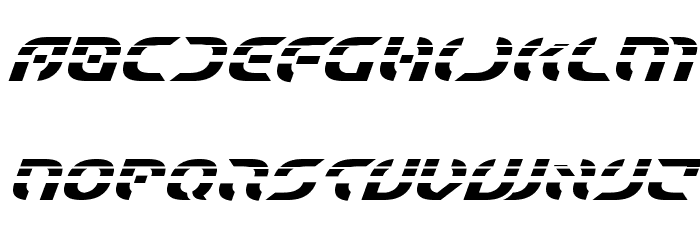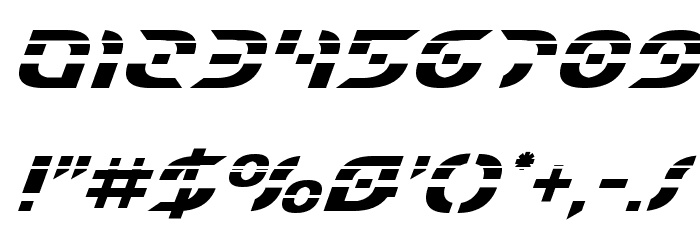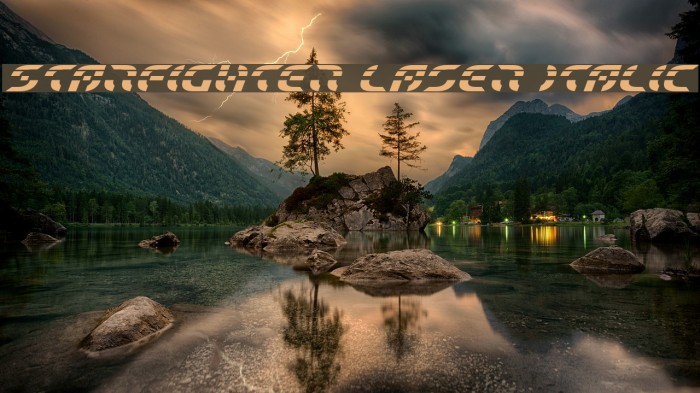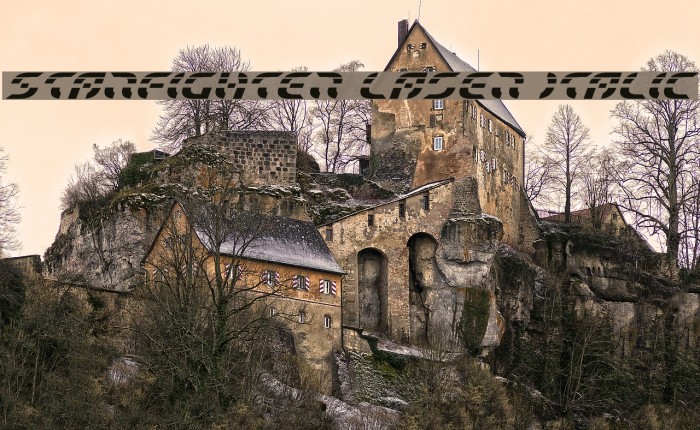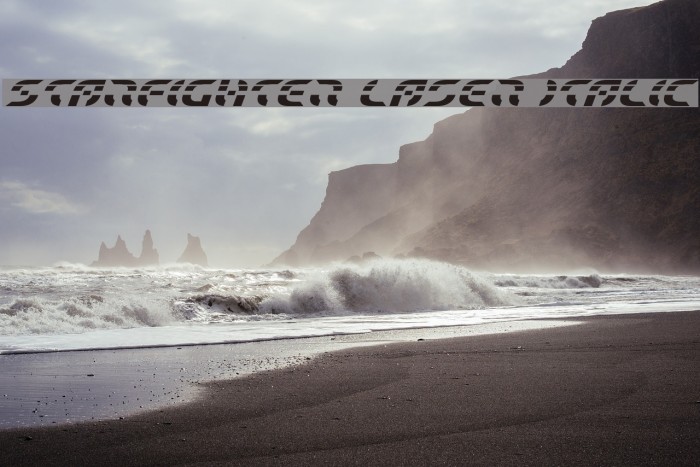
Starfighter Laser Italic Font
This font features a futuristic and dynamic design, characterized by its sharp, angular edges and italicized form. The letters are crafted with a distinct cut-out style, giving them a high-tech, digital appearance. The strokes are bold and consistent, with a medium contrast that enhances readability while maintaining a sleek, modern look. The spacing between characters is tight, adding to the compact and streamlined aesthetic. This font is ideal for projects that require a cutting-edge, sci-fi vibe, such as video game titles, tech branding, or futuristic posters.
A futuristic, italicized font with bold, angular letters and a digital cut-out style.
- Font: Starfighter Laser Italic
- Proposed Projects: Ideal for video game titles, tech branding, sci-fi posters, and futuristic designs.
- Character Spacing: Tight
- Overall Style: Futuristic